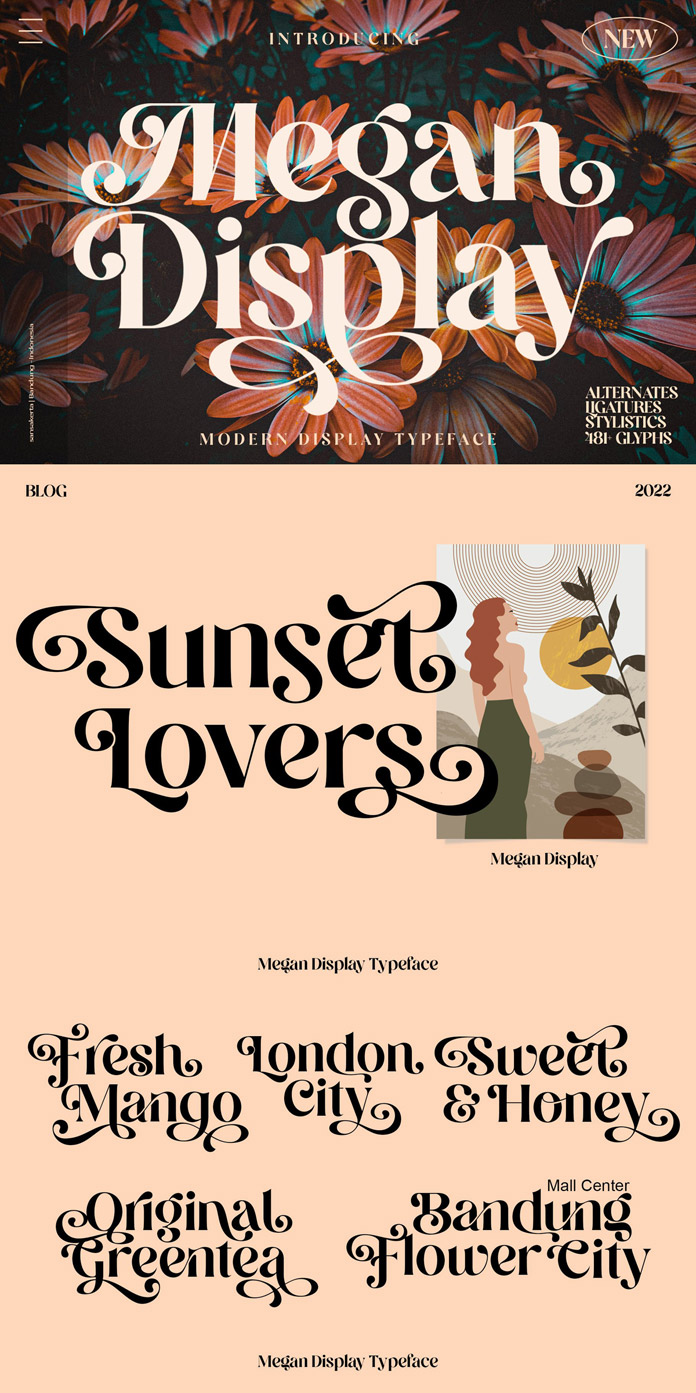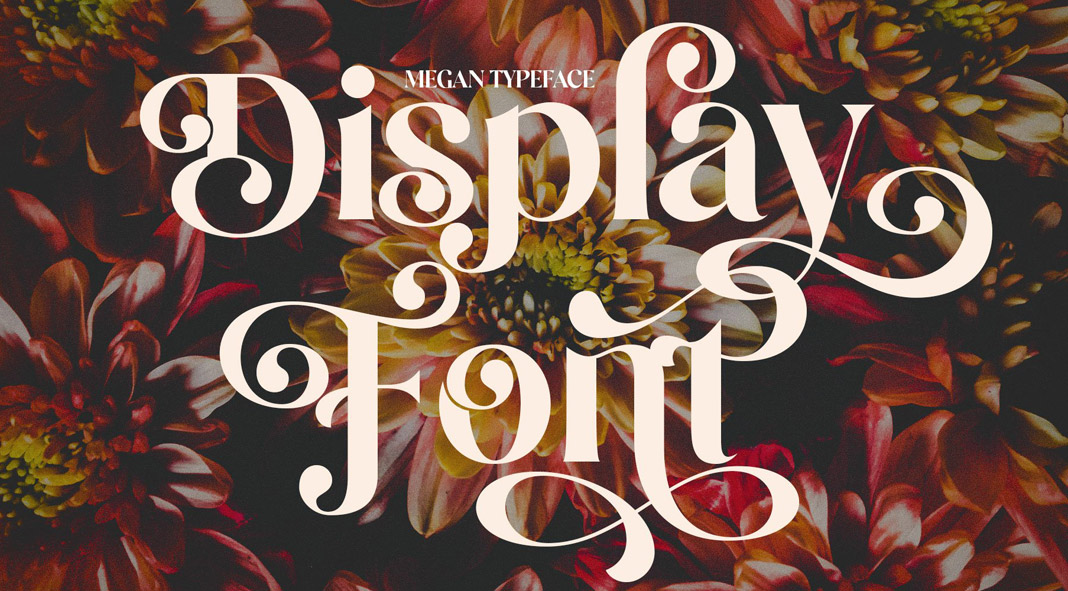
Say hello to Megan Display, an elegant font with lots of typographic features.
Designed and published by Sansakerta, Megan Display is a friendly and elegant font that is characterized by beautiful curves. It comes with alternative characters and plenty of ligatures that will make your work look very special. It is well suited for branding projects as well as logotypes, greeting cards, headlines, packaging, etc.